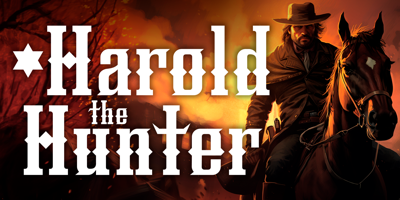
Pantographia Free Download
Pantographia Font Free Download
The Pantographia Font Free Download is a vintage-inspired serif typeface perfect for editorial design, book covers, branding, packaging, and retro-themed projects. Its classic details and elegant curves bring a nostalgic yet refined touch to your designs.
What makes this font exciting is its blend of historical charm with modern readability. Pantographia’s unique letterforms and subtle ornamentation add personality and sophistication, making it ideal for projects that want to stand out with timeless style.
The Pantographia font family includes multiple weights and styles such as Regular, Italic, and Bold, offering versatility for various creative applications.
Whether you're working on vintage branding or elegant print materials, Pantographia Font Free Download enhances your designs with classic elegance.